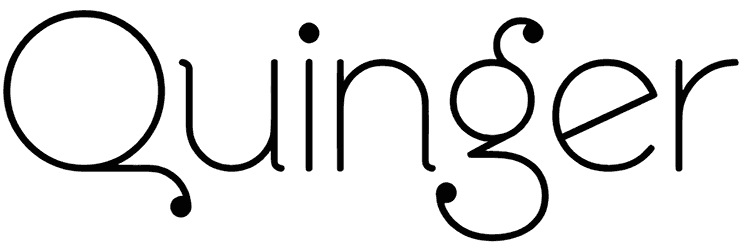
Quinger Font
Quinger is a chic and minimal font that is able to add a sense of modernity, softness, precision, and professionalism to any creative design, including posters, logos, packaging, flyers, invitations, and diplomas. Although it doesn’t fully support numbers, it can give you a hand in leveling up the quality of your artwork.
Font By Almarkhatype Studio